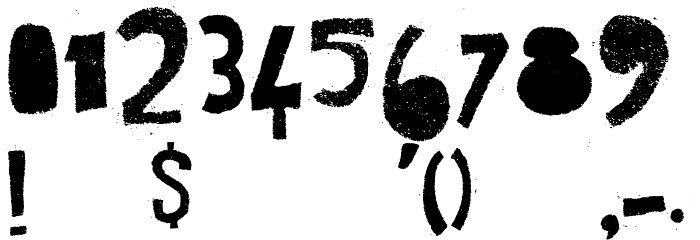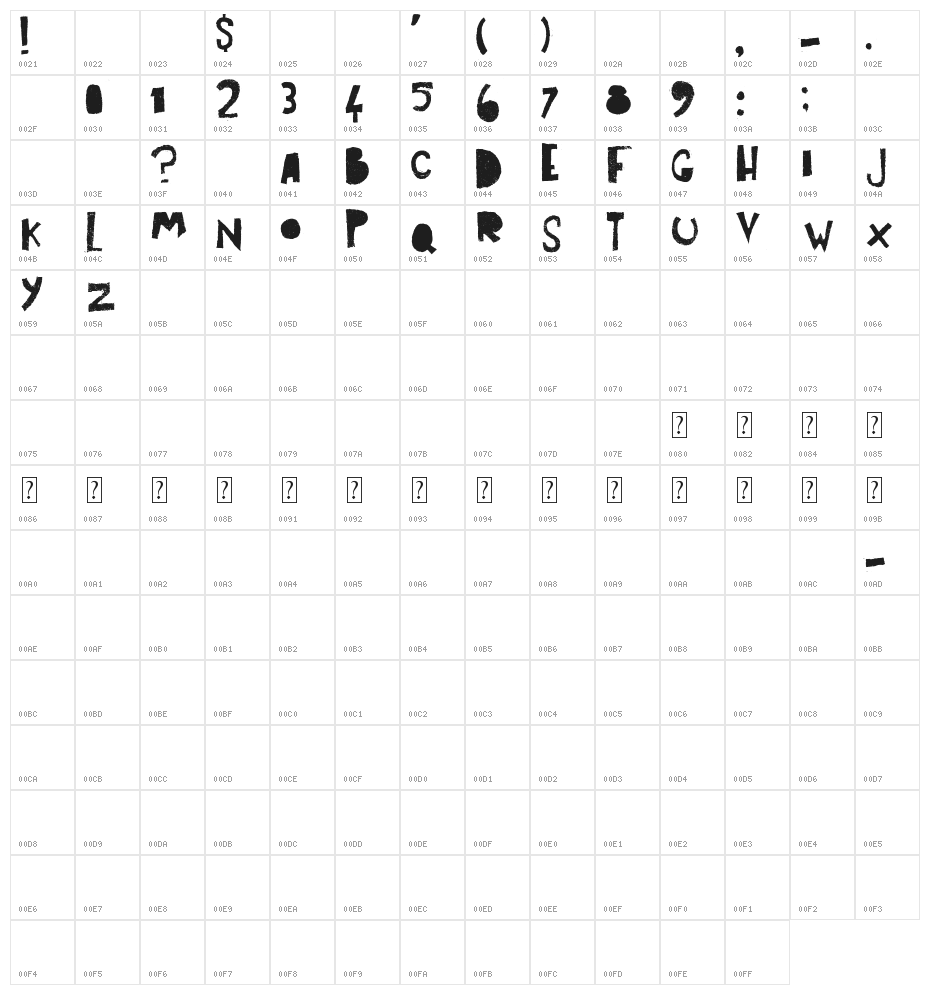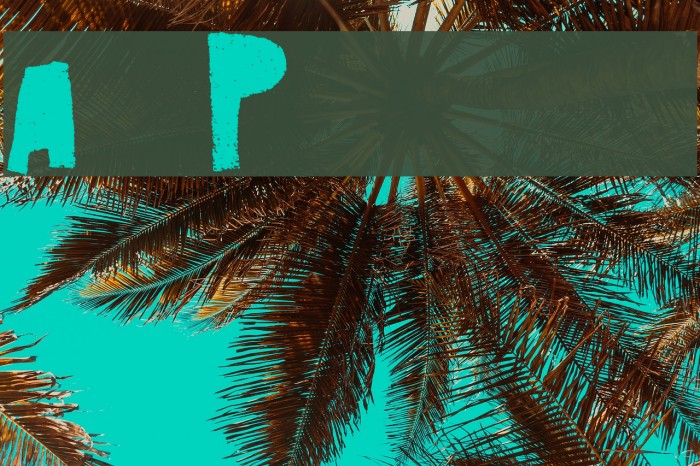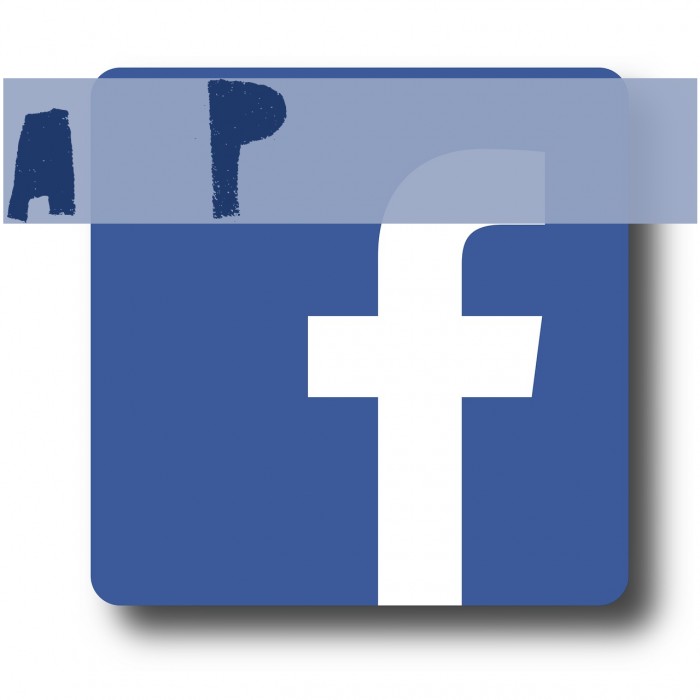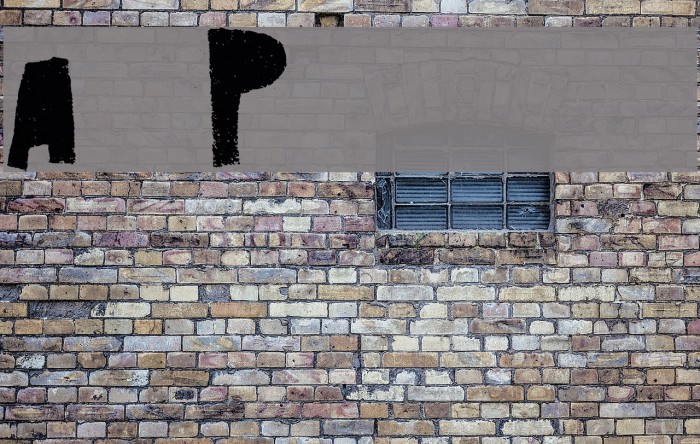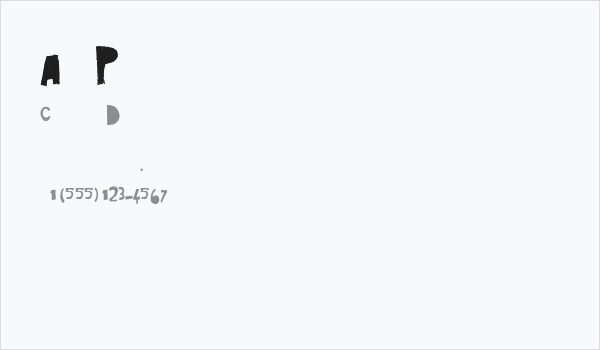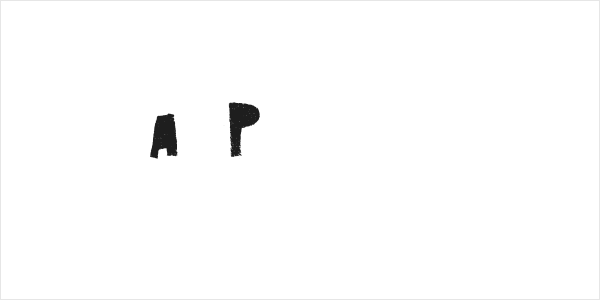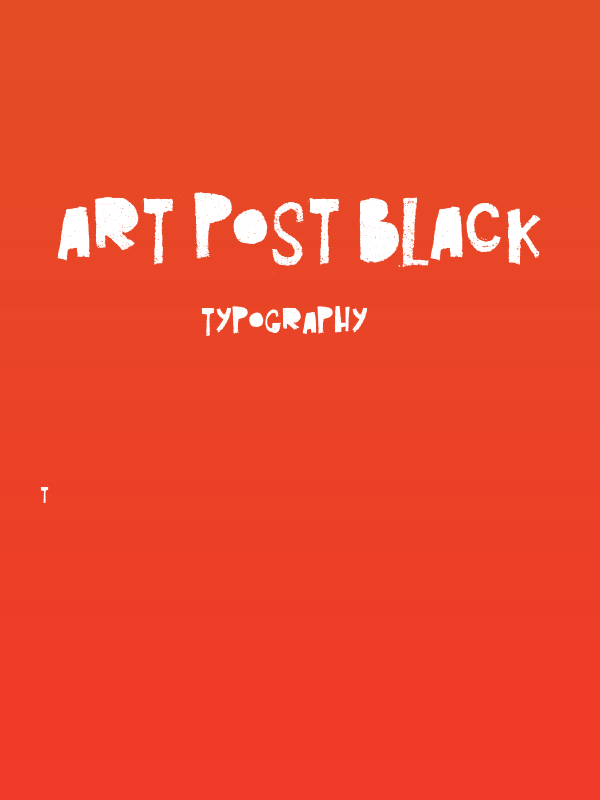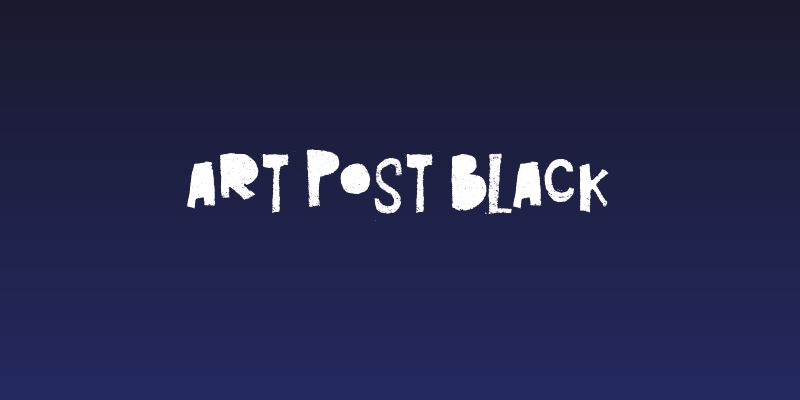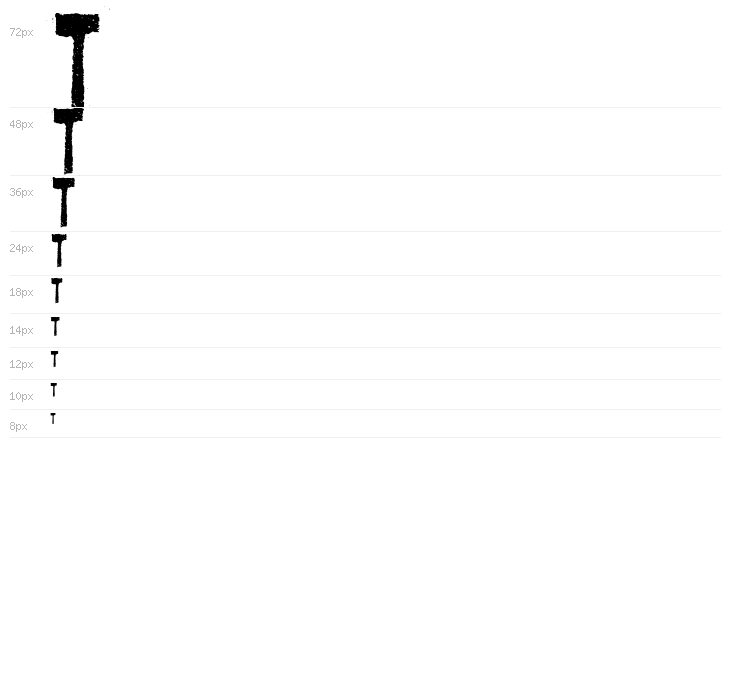
Art Post black Font
Art Post black Description
This font exhibits a bold and playful style with a distinctly hand-crafted appearance. The characters are uneven and irregular, giving them a unique and artistic flair. The uppercase letters are bold and slightly rough around the edges, while the lowercase letters maintain a similar style with a touch of whimsy. Numbers and special characters follow the same bold and textured design, making them stand out. The overall look is reminiscent of a vintage or retro aesthetic, perfect for projects that require a touch of creativity and individuality.
| Proposed Projects | Ideal for posters, album covers, children's book titles, and creative branding projects. |